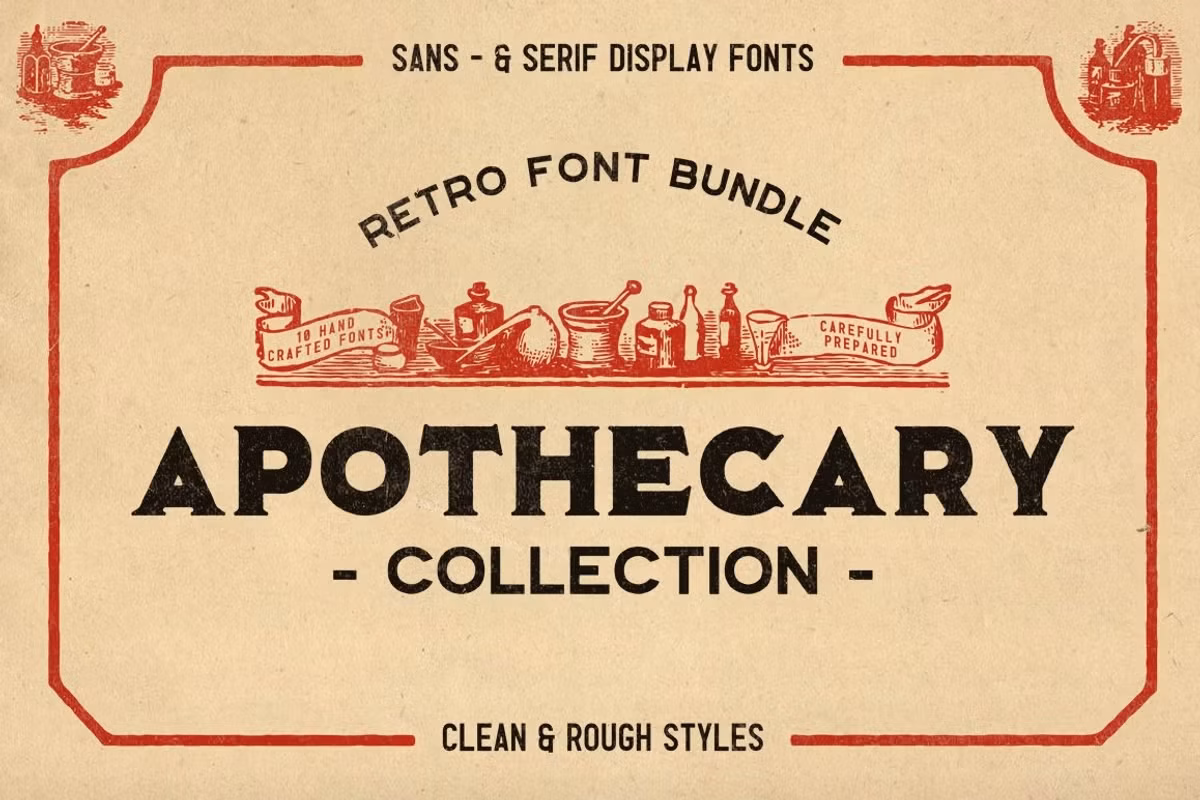
The Apothecary Collection Font Free Download is an elegant and vintage-inspired typeface designed to evoke a sense of nostalgia and sophistication. Featuring classic serif styles with intricate details and ornamental touches, this font collection is perfect for branding, packaging, logos, labels, and designs with a historical or vintage theme.
The Apothecary Collection brings a refined, timeless look to your projects, making it ideal for apothecary-inspired brands, boutique shops, or any project that requires a touch of vintage charm.